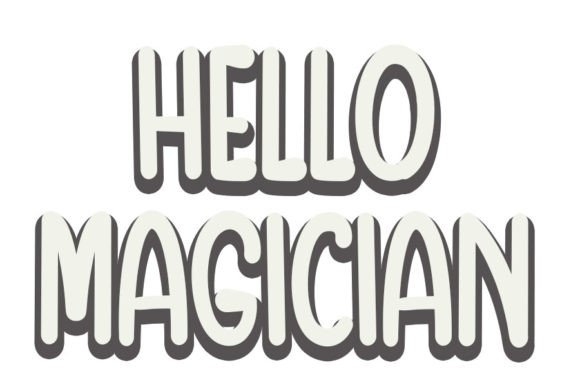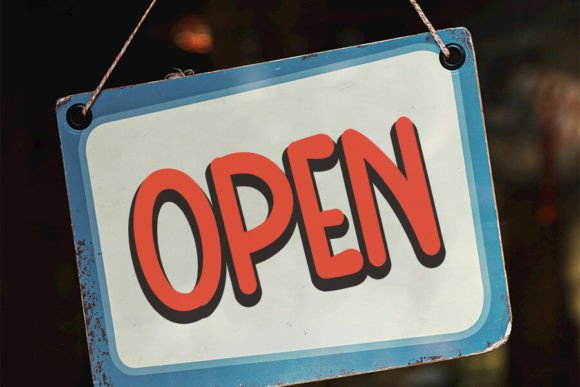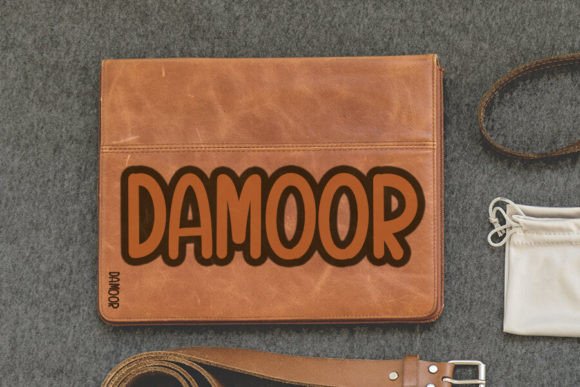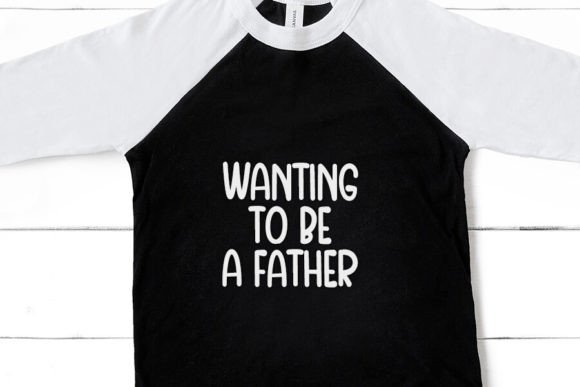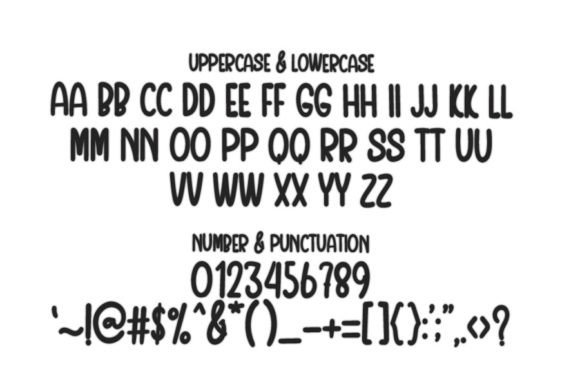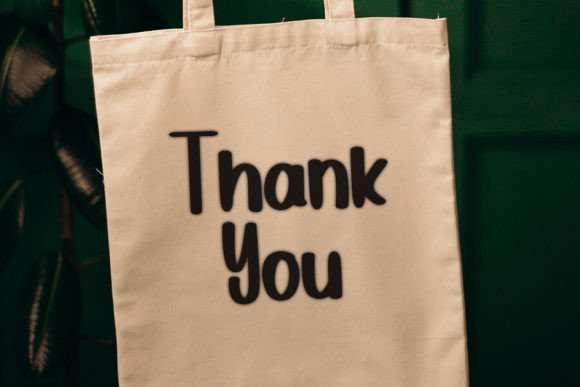
Discovering the Perfect Script: Blonde Font
Have you ever found yourself staring at a blank page, waiting for the perfect font to spark your creativity? It’s that moment when the right typography can transform a design from ordinary to extraordinary. For designers, it’s a constant quest to find the ideal font that captures the essence of their vision.
Enter Blonde Font, a sweet and friendly handwritten font that’s about to become your new best friend. This natural and unique script is designed to bring warmth and personality to any design, making it incredibly versatile and fitting for a wide range of projects. Whether you’re working on a wedding invitation, a food blog, or a children’s book, Blonde Font is the perfect addition to your design toolkit.
With its endless possibilities, Blonde Font is a valuable asset for designers who crave authenticity and character in their work. By incorporating this charming font into your designs, you’ll add a touch of elegance and whimsy that’s sure to leave a lasting impression.
Blonde Font Key Features
- Font Family: Blonde Font is a sans-serif font family.
- Size: The font family includes various weights, ranging from Thin (100) to Extra Bold (800), with 8 weights in total.
- Unique Characteristics: Blonde Font features a clean, modern design with a subtle rounded edge, making it suitable for various applications, including branding, advertising, and digital interfaces.
Blonde Font Review
Overall, I’d say the Blonde Font is a solid choice for designers looking for a modern, elegant sans-serif font. Here are some things that stand out: ✨
- Unique aesthetic: The Blonde Font has a distinct personality that sets it apart from other sans-serif fonts. Its rounded edges and subtle curves give it a friendly, approachable feel.
- High legibility: The font is highly legible, making it perfect for body text, headings, and even large-scale displays.
- Wide range of uses: The Blonde Font is versatile and can be used in various design contexts, from branding and advertising to editorial and publishing.
- Lack of bold weights: The Blonde Font is available in a limited range of weights, which might not be sufficient for designers who need more dramatic contrast or emphasis.
- No italic styles: While the font has a beautiful regular style, the lack of italic and bold italic options might limit its use in certain design situations.
Overall, I think the Blonde Font is a great choice for designers who want a modern, elegant sans-serif font. While it has some limitations, its unique aesthetic and high legibility make it a valuable addition to any design toolkit.
Blonde Font is a elegant and modern font, perfect for:
- Editorial and magazine designs.